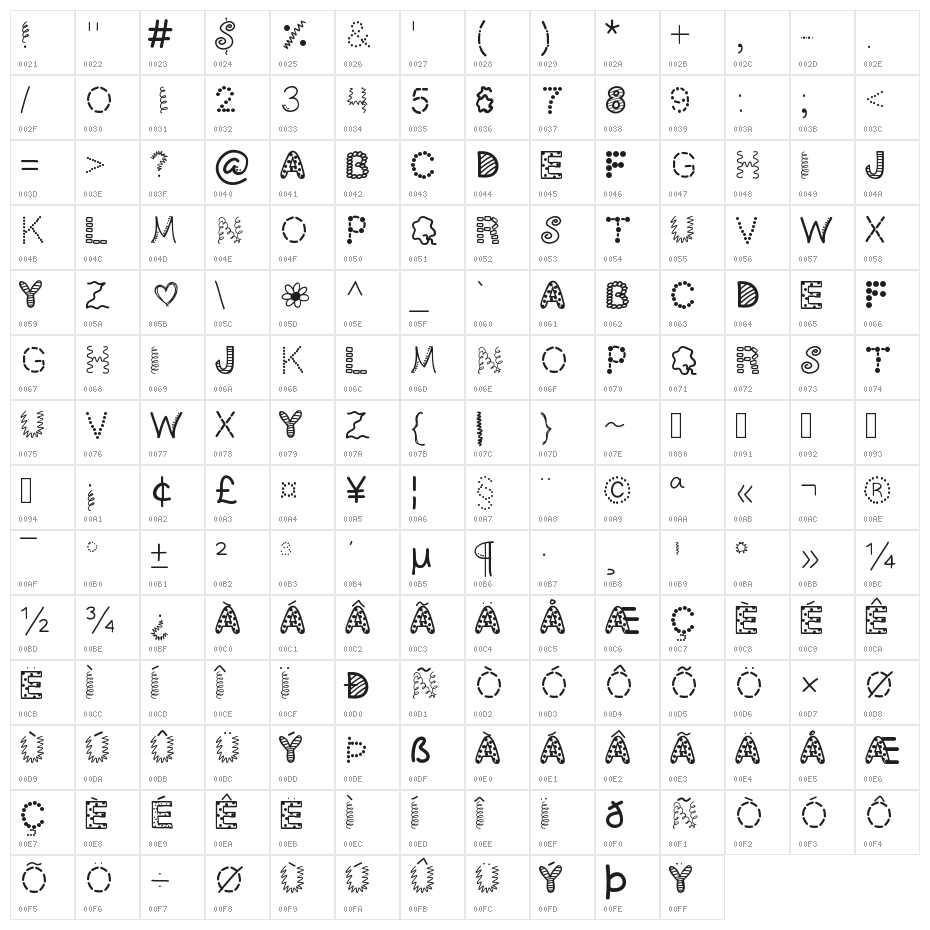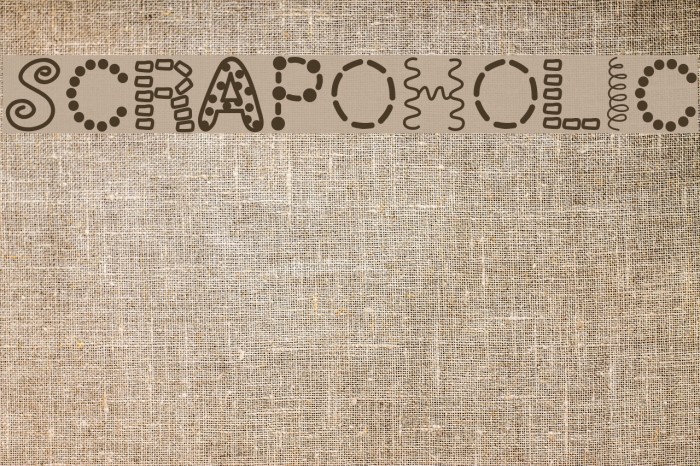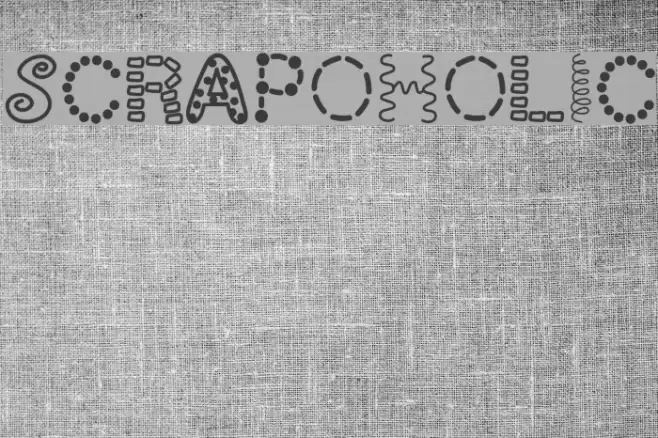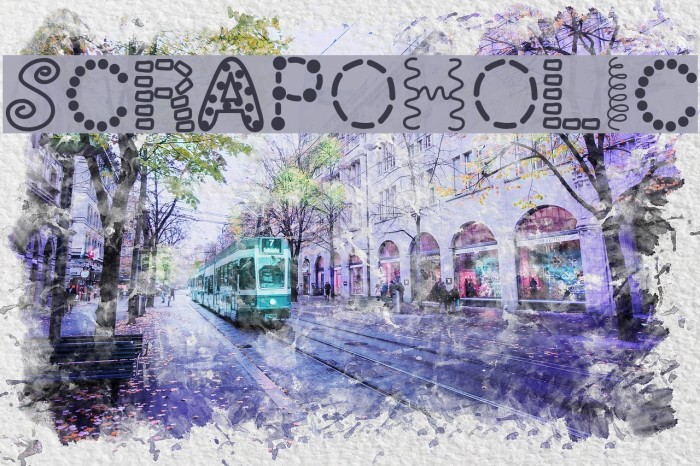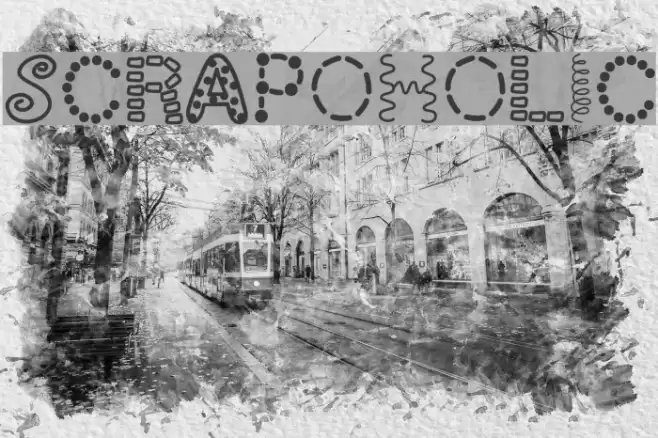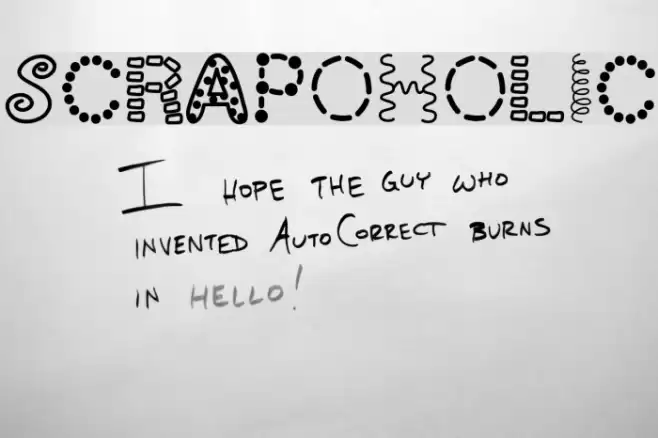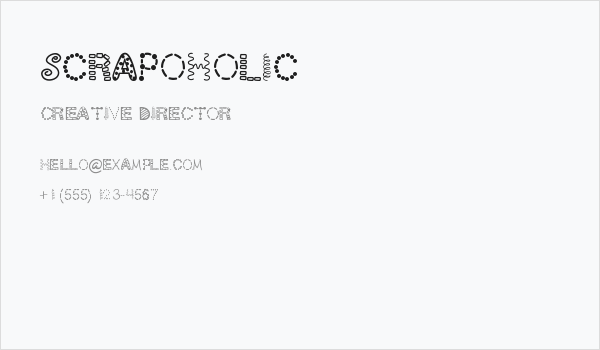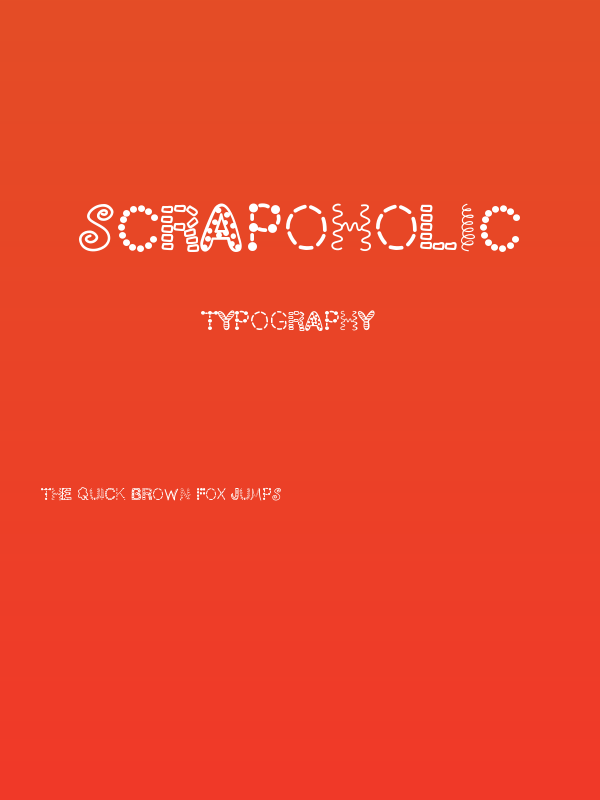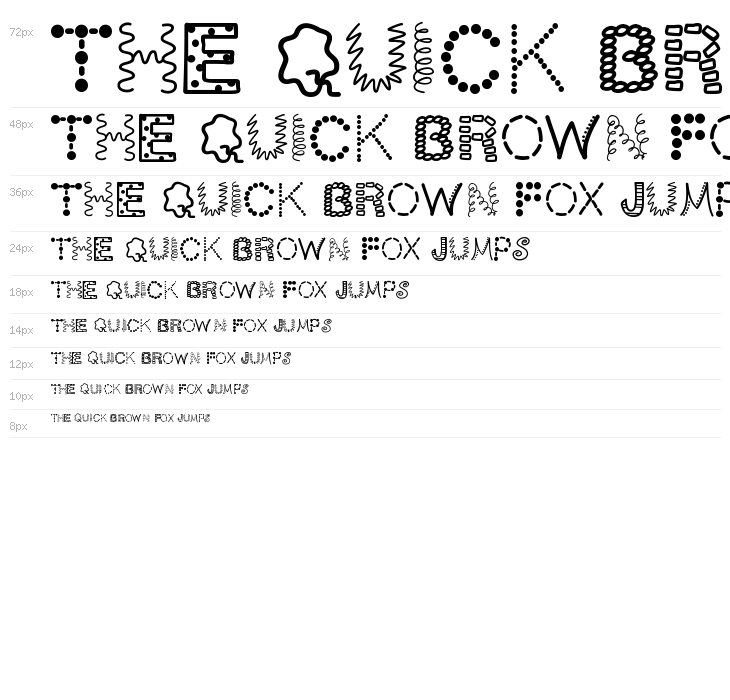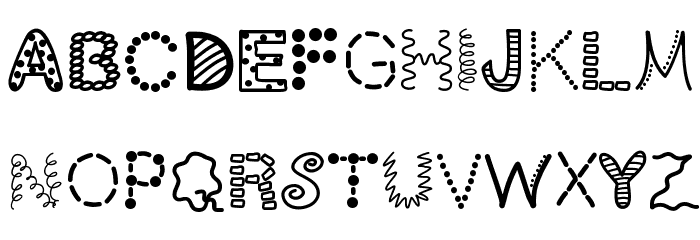
ScrapOHolic Font
ScrapOHolic Description
This is a highly decorative and playful font that features a variety of whimsical patterns and textures within each character. Each letter is uniquely styled with elements such as dots, stripes, zigzags, and swirls, creating a lively and dynamic appearance. The font is bold and eye-catching, making it ideal for creative projects that require a fun and engaging aesthetic. The characters are well-defined, with a consistent use of decorative elements that maintain readability while adding visual interest. This font is perfect for projects that aim to convey a sense of fun, creativity, and uniqueness.
| Proposed Projects | Ideal for children's books, party invitations, scrapbooking, and creative branding. |